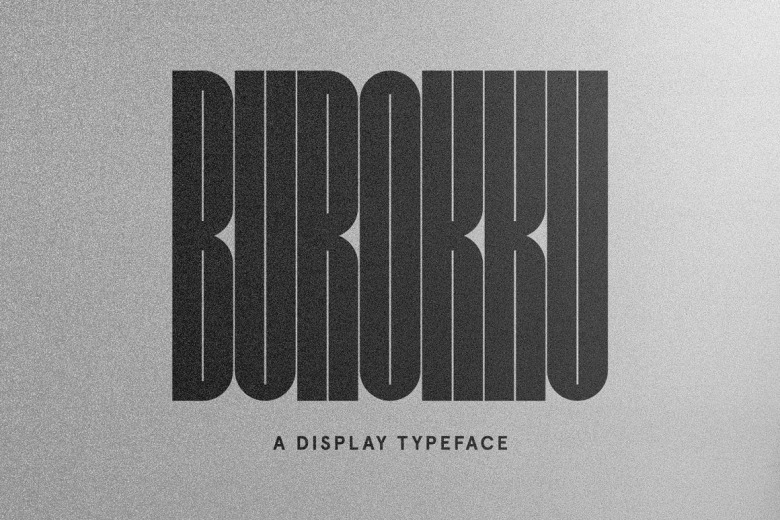
Burokku Typeface
Introducing Burokku Font, is a bold, unique display typeface perfect for big, expressive titles! It is was designed and shares by Platform Design. Burokku is a free sans-serif, extra bold and unqiue typeface. For numbers, punctuation, multi-language options and an array of unqiue and interesting glyphs follow the link to download the full version.
Burokku Display Typeface